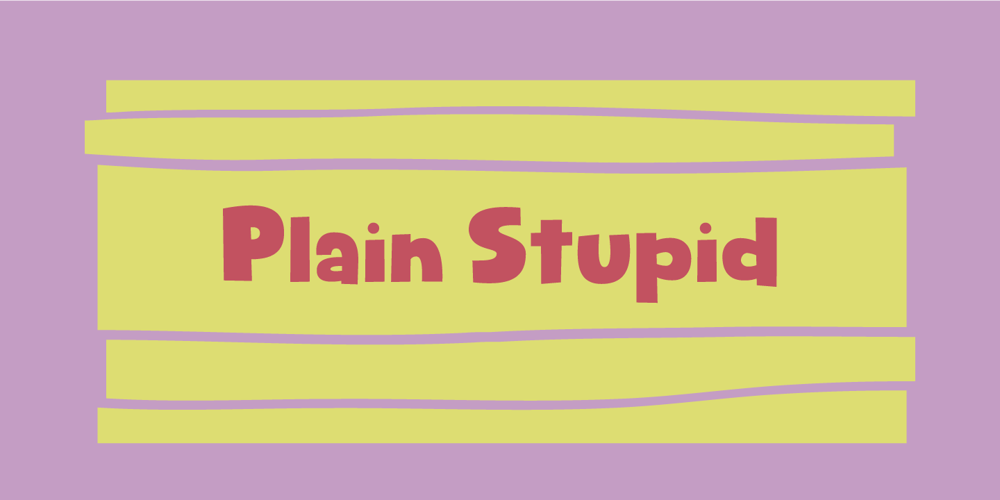
Plain Stupid
Plain Stupid font
Plain Stupid Font Family was designed by Jakob Fischer and published by PizzaDude.dk. Plain Stupid contains 2 styles and family package options. Really, there is nothing stupid about this font. In some strange and weird way, I just thought that the name sounded like something eye-catching – in the same way that the font is eye-catching!It may look like your average comic font, but it’s not! I carefully put a lot of funk, twist, comic and a spoonful of pizzadude into each and every letter. The result is a bouncy crazy looking comic font. Oh, I almost forgot – I topped the letters with a spoonful of grafitti mixed with the sounds of a party…that’s the recipe for this lovely multilingual font! 🙂